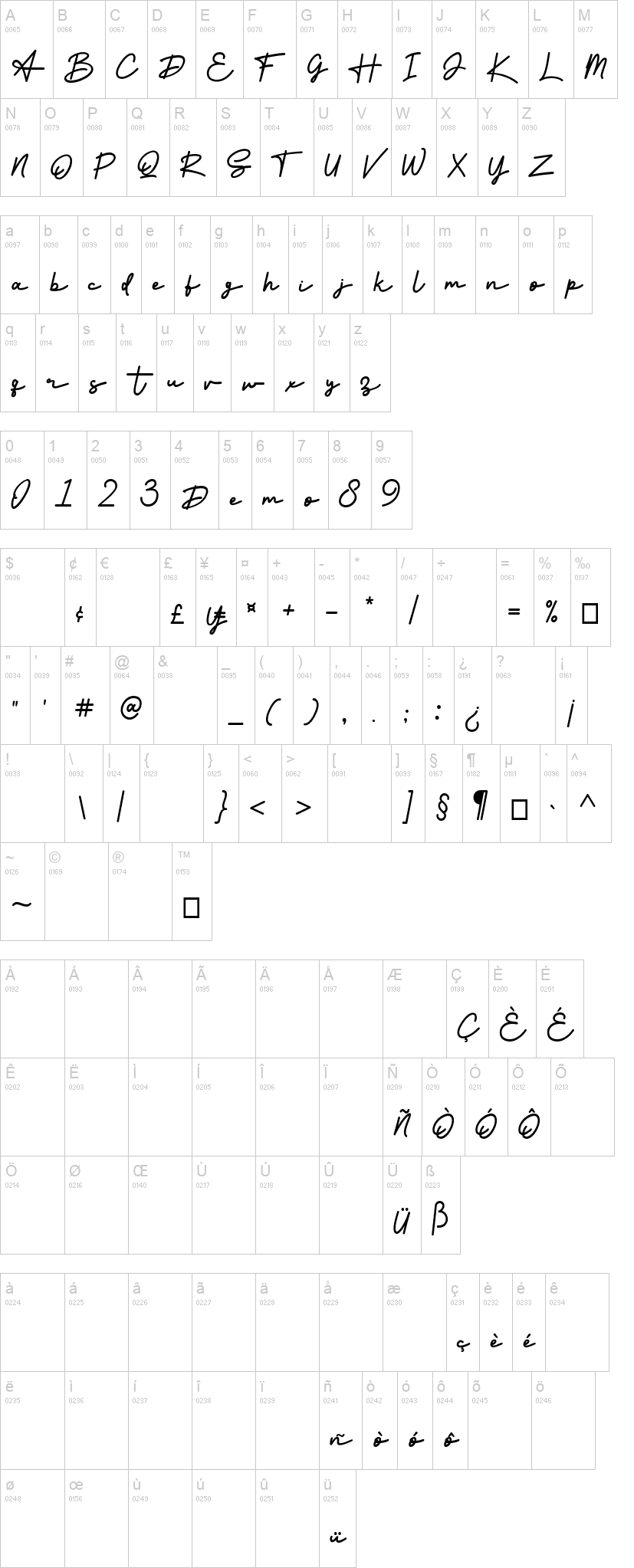
Note of the authorSinteniku font is a magnificent curved display font. Sinteniku font is a minimalist script type fonts. Sinteniku font is a sophistication with its lettering.